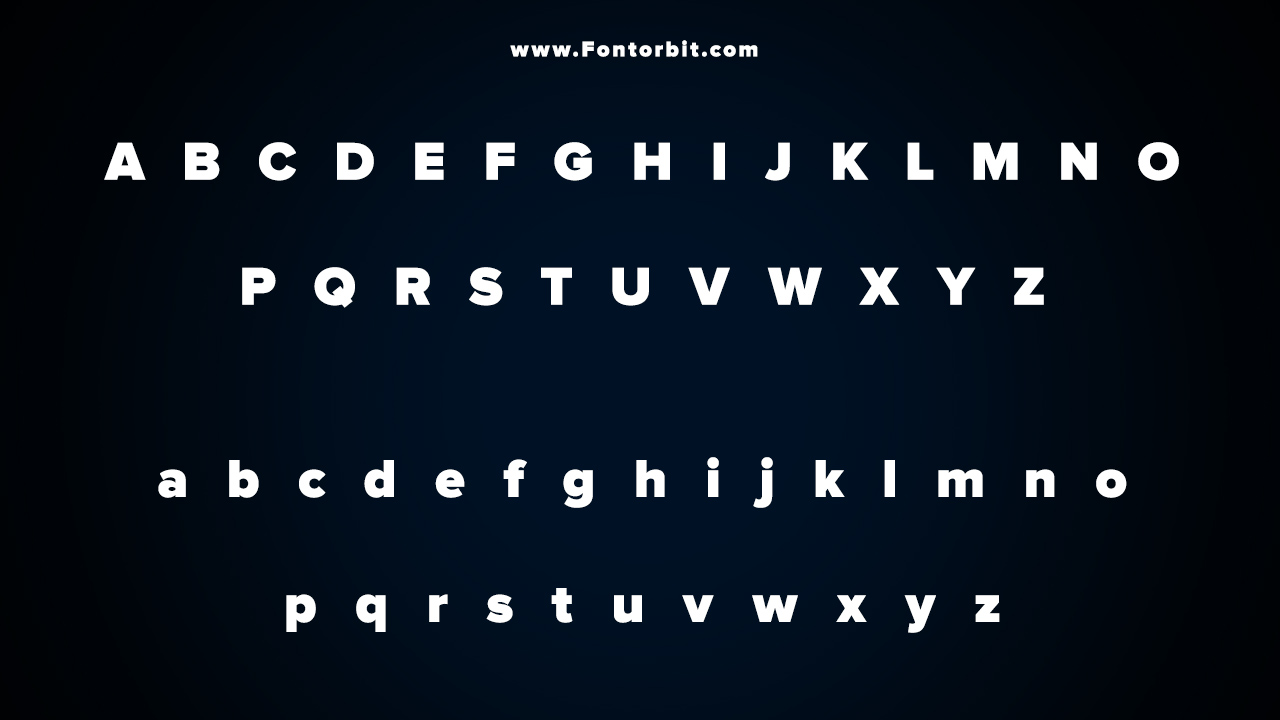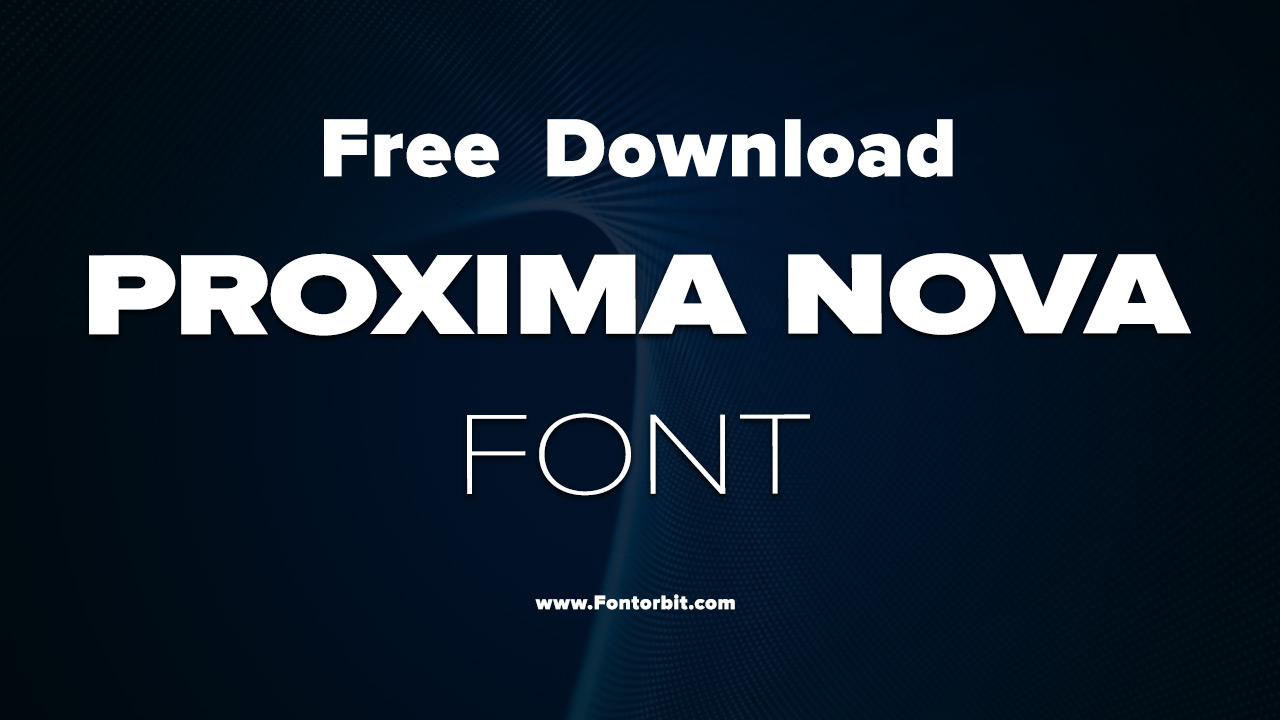
Proxima Nova is a versatile sans-serif font designed by Mark Simonson and first released in 2005. It’s part of the Proxima Font Family.
The font combines modern proportions with a geometric appearance, making it highly popular in both print and digital media. The font blends simplicity and readability, creating a professional yet approachable feel.
Proxima Nova Family Includes
The Proxima Nova font family consists of 48 styles. It offers a wide range of weights and italics, making it adaptable for various design needs, from headlines to body text. The Proxima Nova Family Includes:
Notable Uses Of Proxima Nova
The Proxima Nova font has been widely used in
- Websites
- branding
- advertising
- app design.
Major platforms such as
- Buzzfeed
- Mashable
- Wired
This font is perfect for:
- Website headers and body text
- Mobile app UI
- Print designs such as brochures and posters
- Corporate logos and branding
Due to its neutral and modern style, Proxima Nova is versatile enough for both formal and creative projects.
Proxima Nova is a go-to font for designers seeking a balance between geometric shapes and humanist proportions. Its legibility and modern look make it a valuable asset in both digital and print media. While it’s a paid font, there are many free alternatives available that capture its essence.
2.What Makes Proxima Nova Popular?
Its versatility, clean lines, and readability make it popular for both digital and print media.
3.Who Designed Proxima Nova?
Proxima Nova was designed by Mark Simonson in 2005.
7.Can Proxima Nova Be Used In A Logo?
Yes, its modern and neutral style makes it ideal for branding and logos.
8.What Font Pairs Well With Proxima Nova?
Fonts like Merriweather or Roboto pair well with Proxima Nova.
9.Is Proxima Nova Good For Body Text?
Yes, its clean, legible design makes it suitable for body text as well as headlines.
10.How Many Weights Does Proxima Nova Have?
Proxima Nova comes in 48 styles, including various weights and italics.